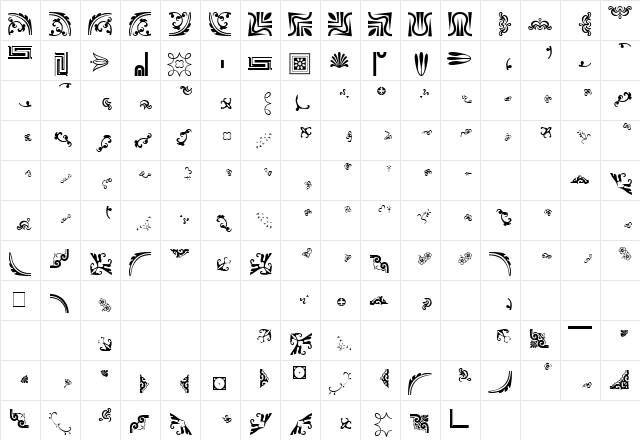
JournalDingbatsThreeSSi Regular
Design Context for JournalDingbatsThreeSSi Typeface
JournalDingbatsThreeSSi is a composed and adaptable typeface that performs quietly and consistently across a wide range of design contexts.
Pro Tip: Use JournalDingbatsThreeSSi in both headline and body roles to test its range before committing to a single application.